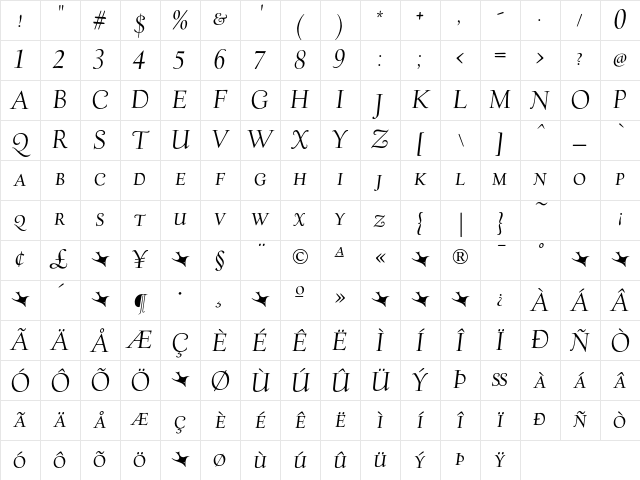
Complete Village ItalicSmallcapsTitling glyph index. Displaying only characters natively supported by Village ItalicSmallcapsTitling font.
Village is a composed and adaptable typeface that performs quietly and consistently across a wide range of design contexts. The slanted form adds forward momentum and visual energy.
Pro Tip: Use Village for emphasis, pull quotes, and subheadings where its slanted energy can add rhythm to the layout.